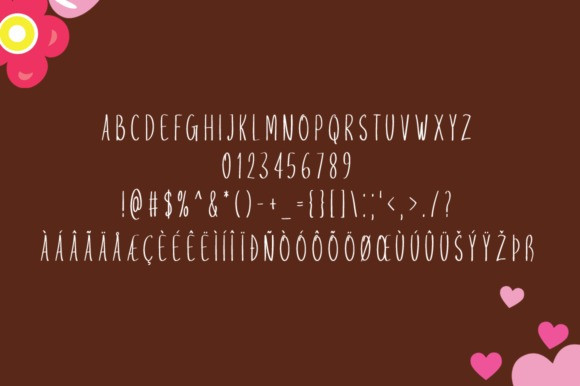
Majestic Valentine Display Font
Majestic Valentine is a tall and fun handwritten font. It features a cute and joyful style that will take your designs to the next level!